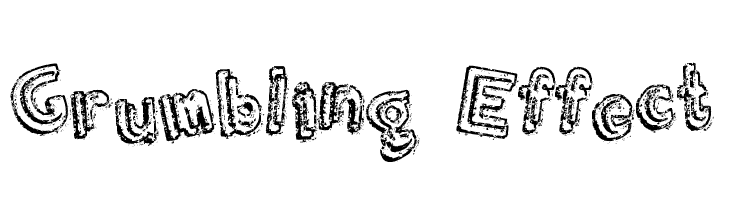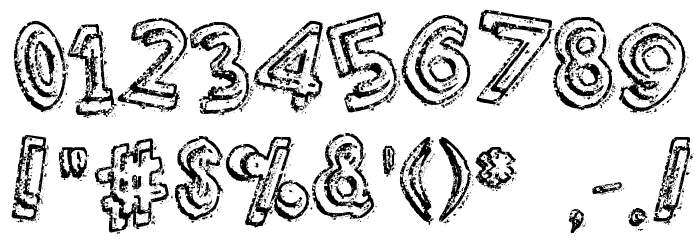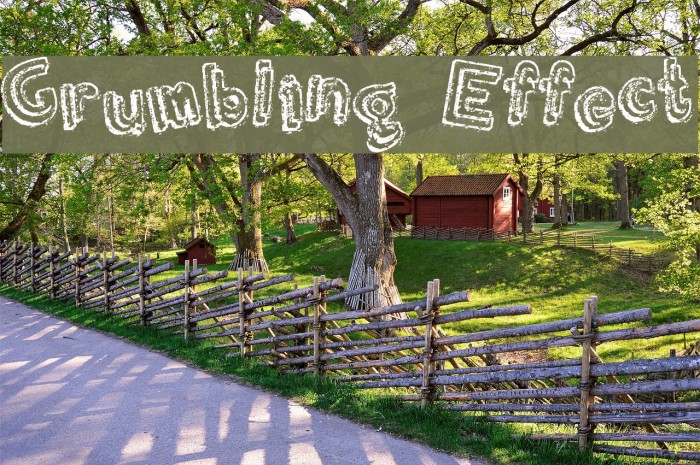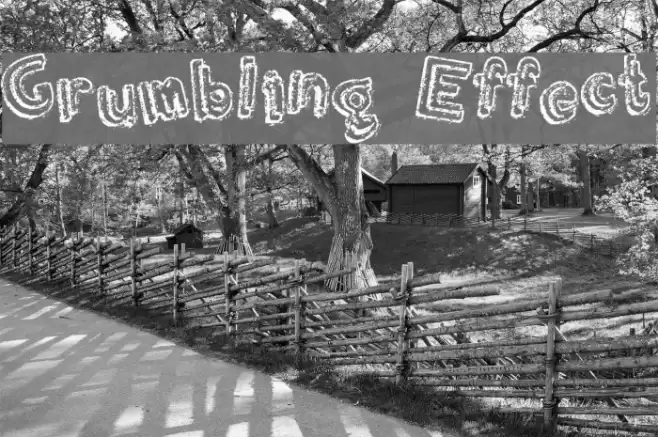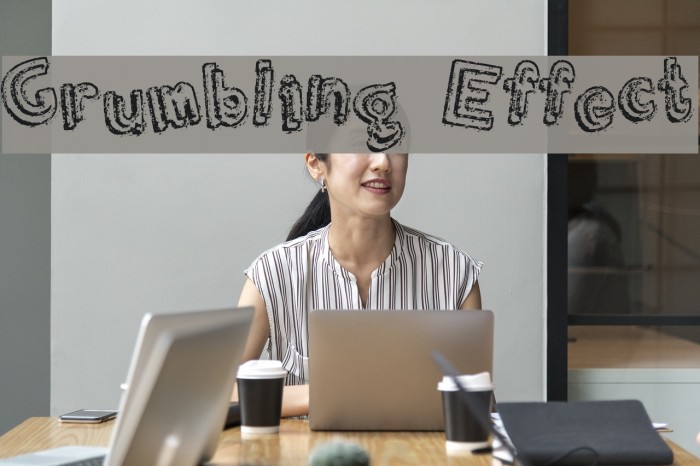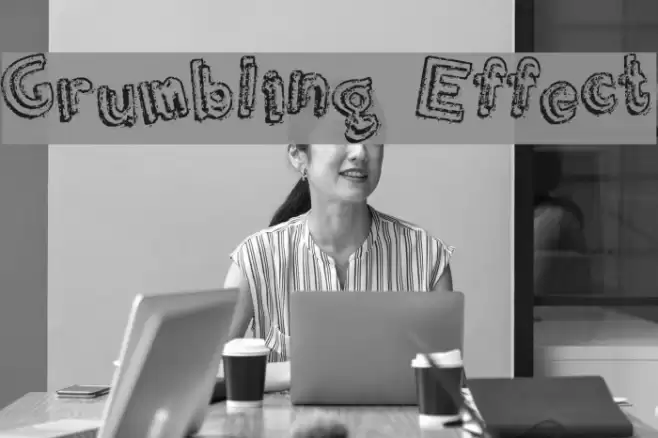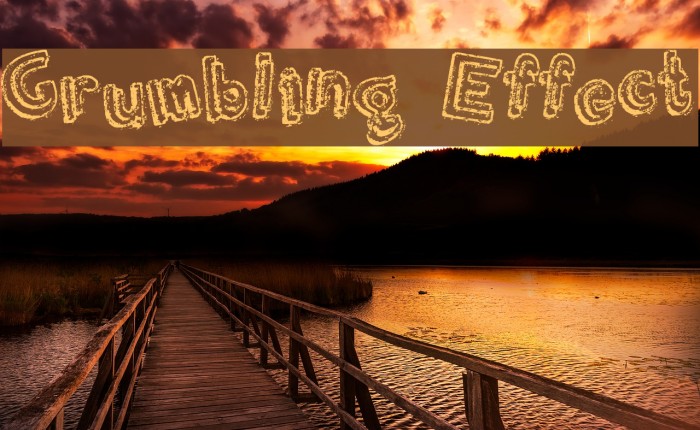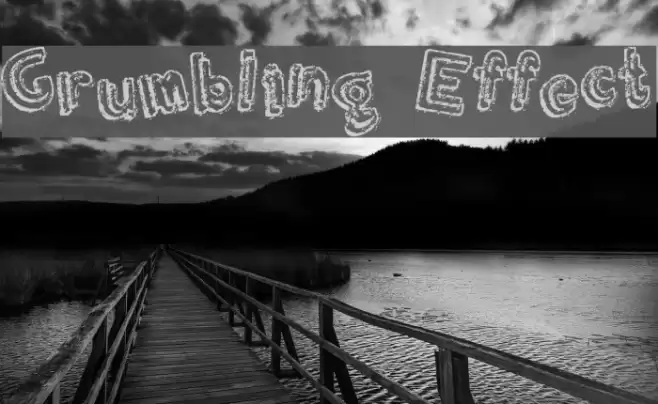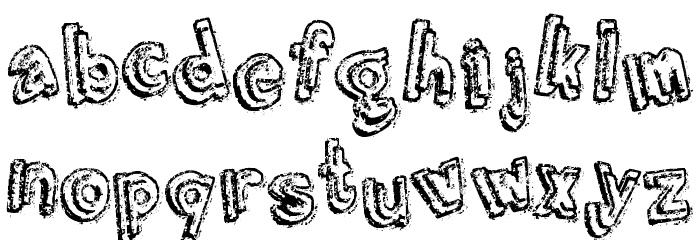
Grumbling Effect Font
Grumbling Effect Description
This font features a playful and textured style, with each character appearing as if it has been hand-drawn with a rough, grungy effect. The letters have a bold presence with uneven edges, giving them a dynamic and energetic feel. The uppercase and lowercase letters maintain a consistent style, while the numbers and special characters complement the overall aesthetic. The font's unique appearance makes it stand out, ideal for projects that require a touch of creativity and informality.
| Proposed Projects | Ideal for comic books, children's book covers, posters, and creative branding projects. |